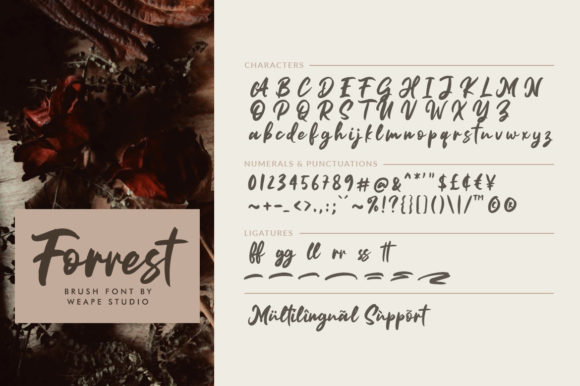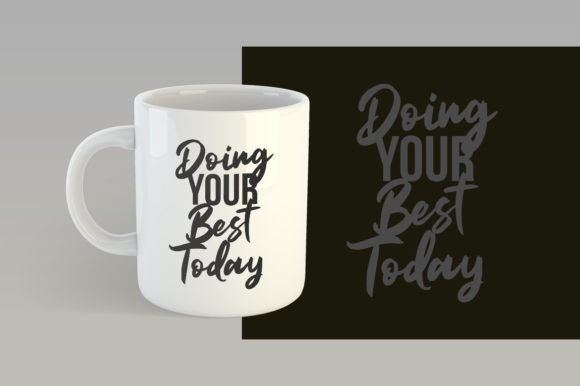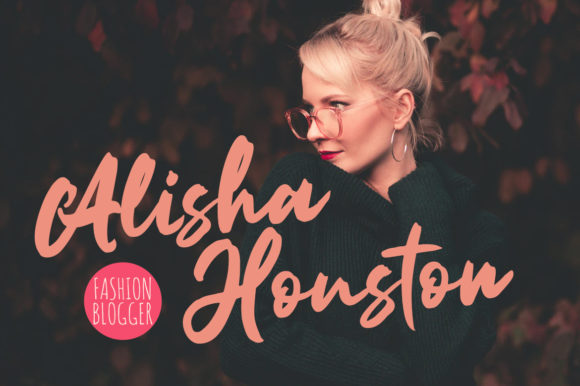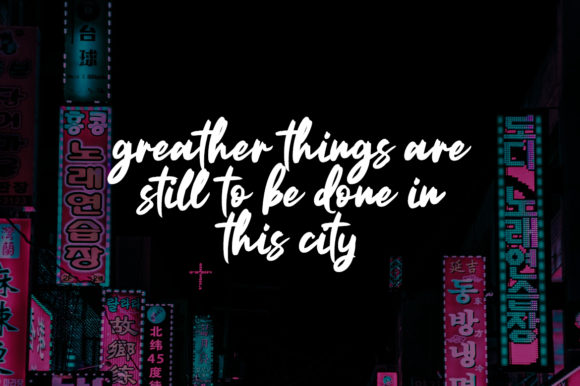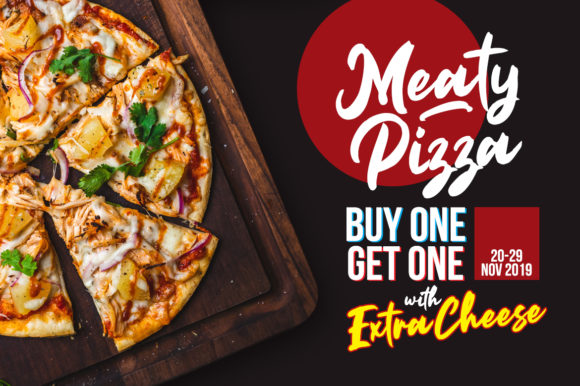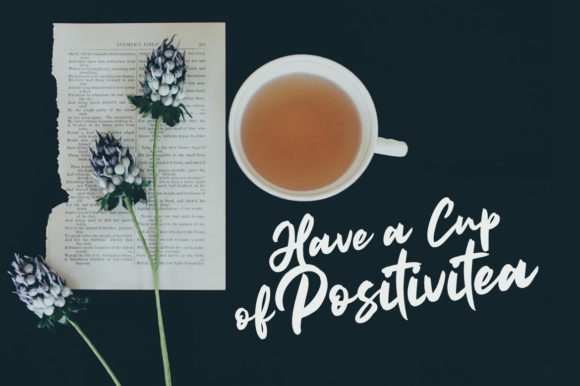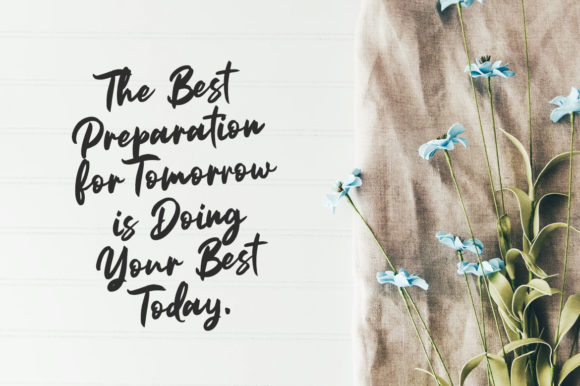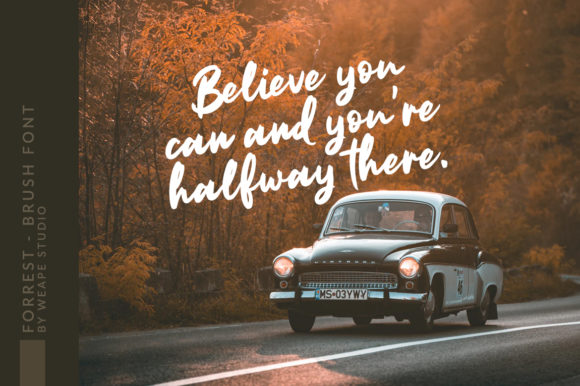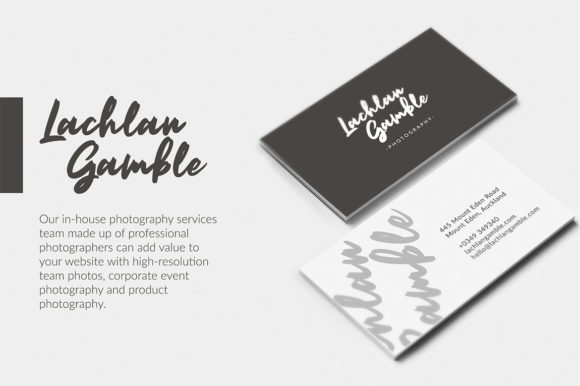
Forrest Font
About Forrest Font
Forrest is an adventurous and raw script font that radiates authenticity. It will work well with any hiking or outdoor-themed projects, as well as any creative idea that needs that down-to-earth feel!